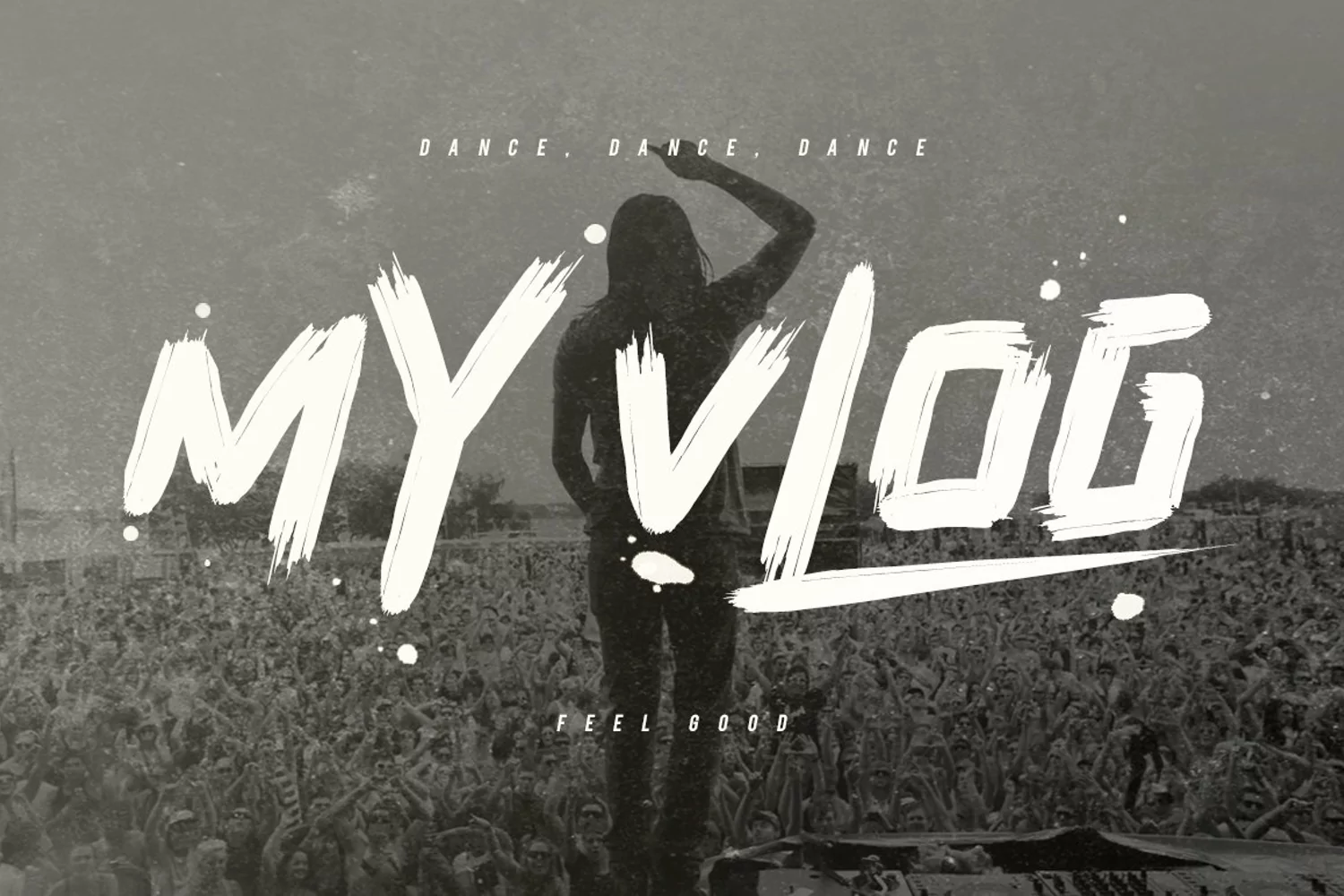
Arissa Typeface
by Maulana Creative
Give your designs an authentic brush handcrafted feel. "Arissa Typeface" is perfectly suited to stationery, logos and much more.